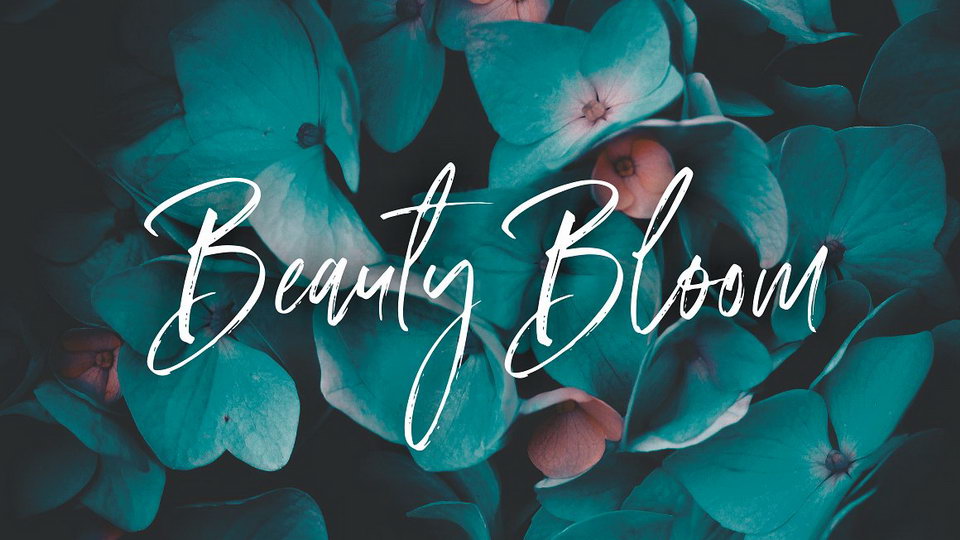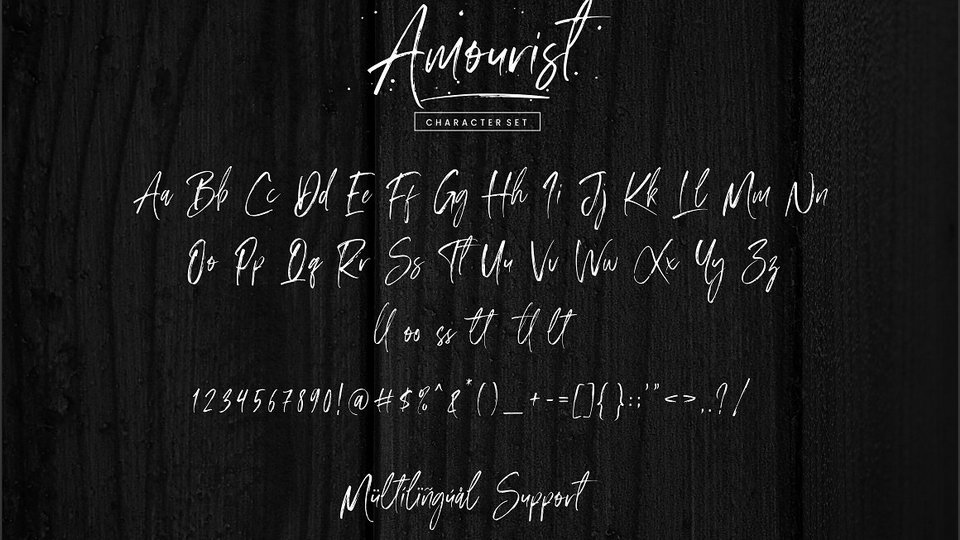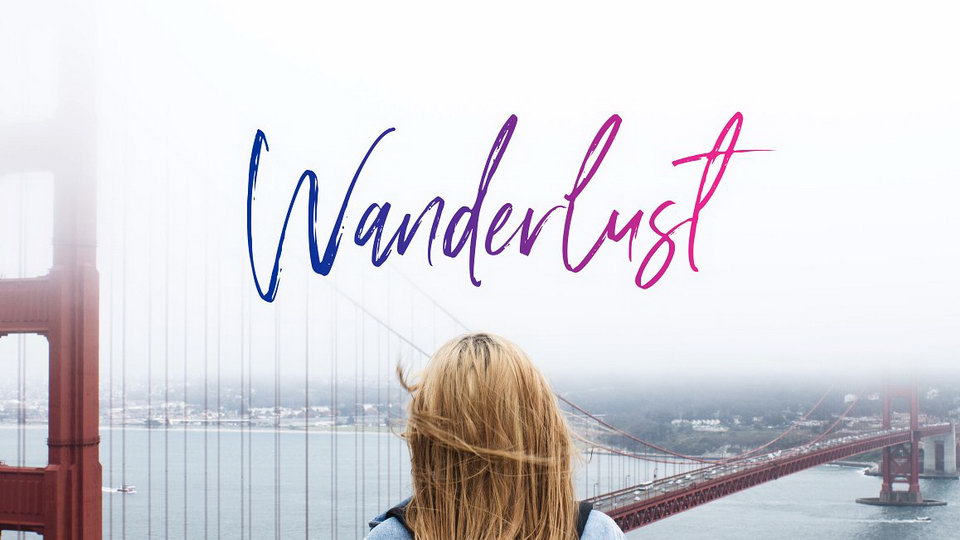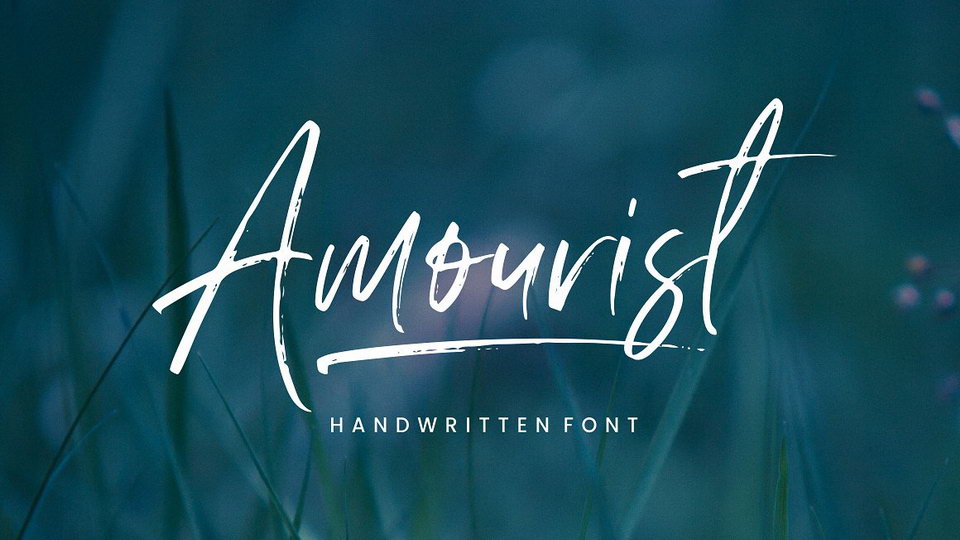
Amourist Script
Amourist is a natural handbrused font with a free flow. This font is perfect for logo, invitation, stationery, wedding designs, social media posts, advertisements, product packaging, product designs, label, photography, watermark, special events or anything.
Amourist comes with full set of uppercase and lowercase letters, multilingual symbols, numerals, punctuation.